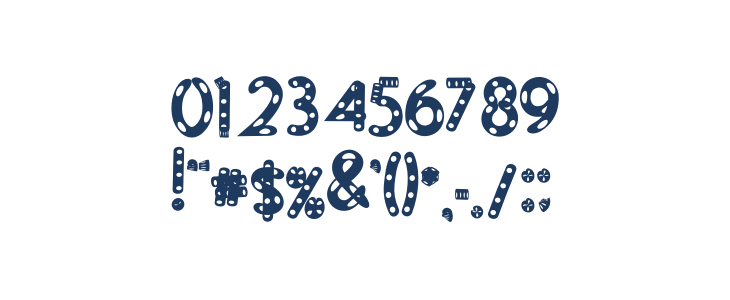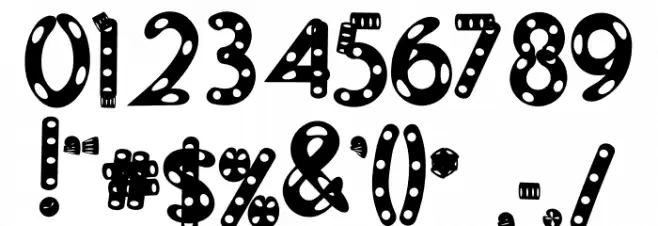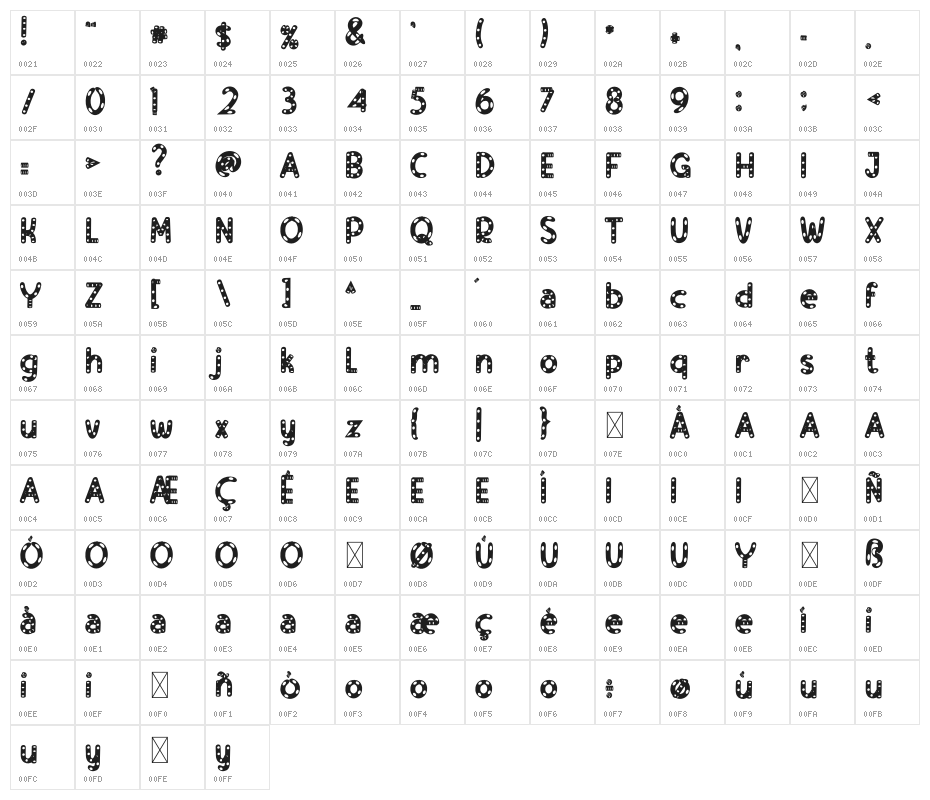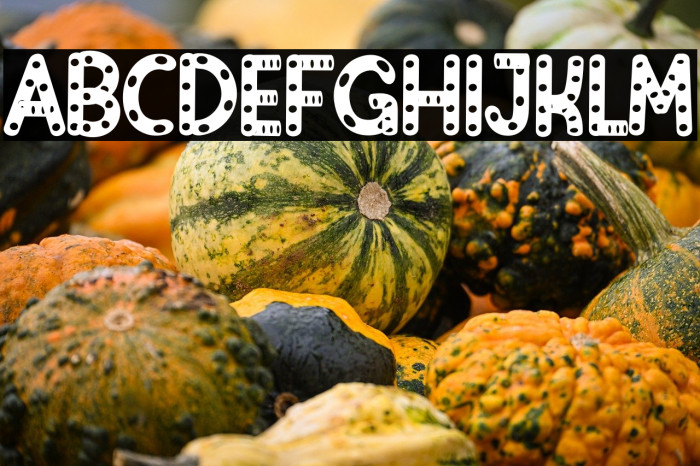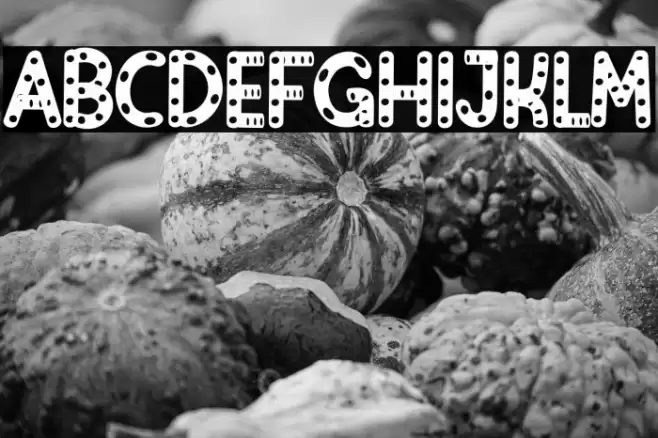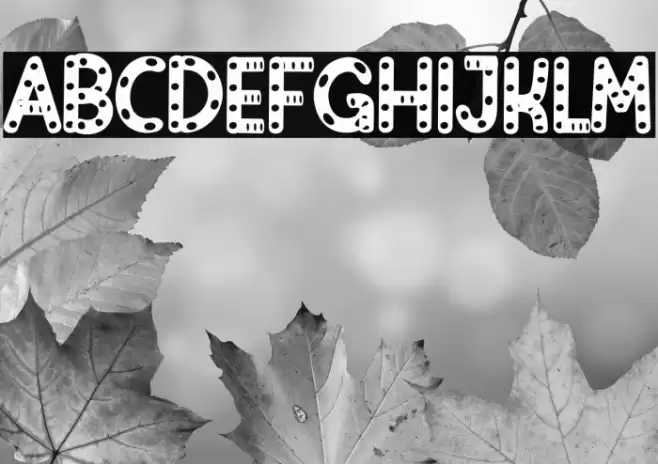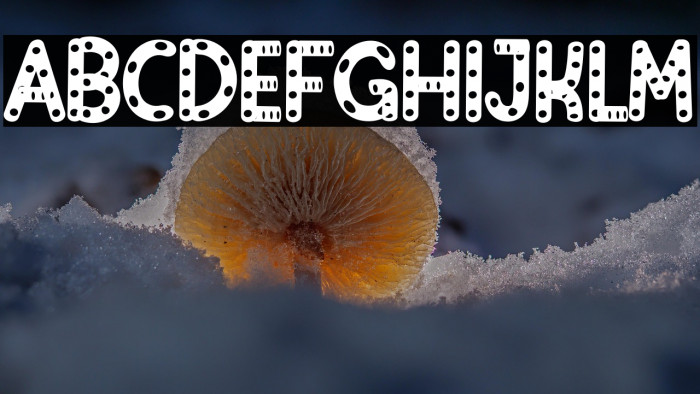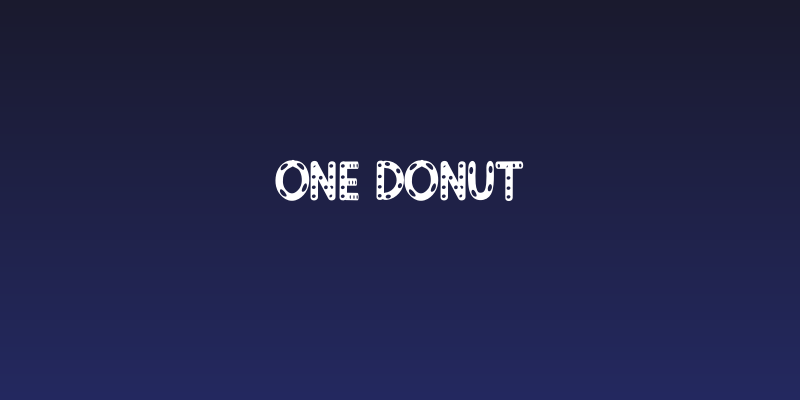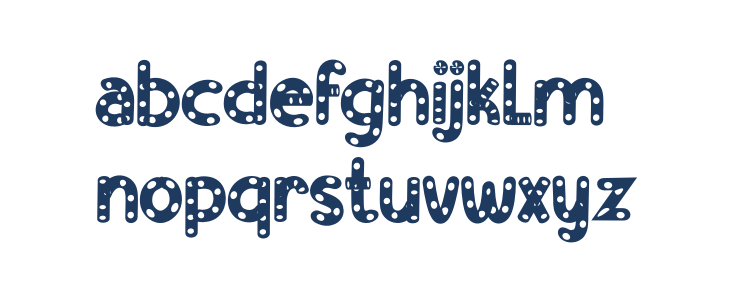
One Donut Font
One Donut Description
This playful and whimsical font features bold, rounded characters filled with circular cutouts, reminiscent of donuts. The design is consistent across uppercase, lowercase, numbers, and special characters, creating a cohesive and fun appearance. The font's unique style is eye-catching and ideal for creative projects that require a touch of humor and lightheartedness. The bold strokes and uniform spacing make it highly legible, while the decorative elements add a layer of visual interest. Perfect for projects aimed at children or for branding that seeks to convey a sense of fun and playfulness.